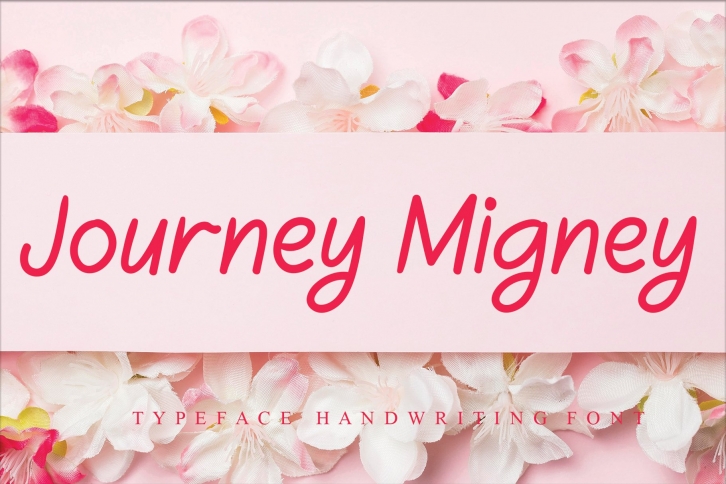
Journey Migney is a beautiful font that was designed by andikastudio. It's a great choice for designers and creatives who need such a font. It was released on October 13, 2020 and the file size is 13.95 MB. Journey Migney may give a more youthful, expressive and casual look to your project. It is a very beautiful, refined, elegant, and high-quality font.